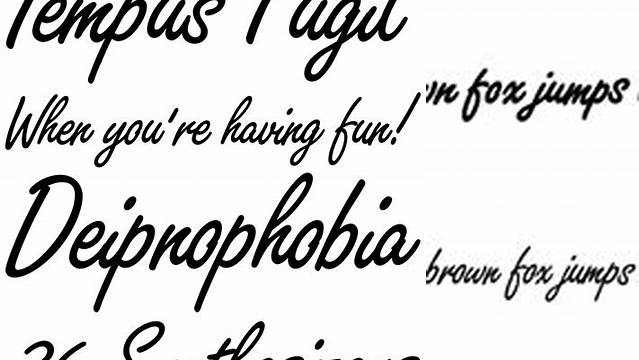
Freestyle Script STD Regular: Font Guide & Uses
Hey guys! Ever stumbled upon a font that just oozes elegance and personality? Well, that's Freestyle Script STD Regular for you! This font is like that effortlessly cool friend who always knows how to make a statement. In this article, we're diving deep into everything Freestyle Script STD Regular – from its history and characteristics to its best uses and even some fun alternatives. So, buckle up and let's get font-astic!
1. What is Freestyle Script STD Regular?
Freestyle Script STD Regular is more than just a font; it's a statement. Created by the talented Martin Wait, this typeface falls into the script font category, meaning it mimics the flowing strokes of handwriting. But what sets it apart? Freestyle Script STD Regular has this unique, almost whimsical quality. It's like a calligrapher decided to let loose and have some fun! The font features a distinctive slant, playful curves, and a rhythm that feels both spontaneous and refined. Its legibility is surprisingly good for a script font, making it versatile for a range of applications, from invitations to branding materials. So, whether you're designing a logo, crafting a heartfelt card, or adding a personal touch to your website, this font can be a game-changer. But what exactly makes it so special? Let's delve deeper into its characteristics and explore what makes Freestyle Script STD Regular a true gem in the world of typography.
2. History and Origin of Freestyle Script
The story behind Freestyle Script is as interesting as the font itself. Designed by Martin Wait in 1981, this font wasn't an instant hit, but it steadily gained popularity over the years, becoming a staple in many designers' toolboxes. Martin Wait's vision was to create a script font that felt both natural and stylish, capturing the essence of handwritten calligraphy but with a modern twist. He drew inspiration from various sources, including traditional penmanship and contemporary design trends. The result? A typeface that's both timeless and fresh. The journey of Freestyle Script STD Regular from its inception to its widespread use is a testament to its enduring appeal. It's a font that has managed to stay relevant despite the ever-changing landscape of design, proving that true craftsmanship and a unique vision can stand the test of time. So, next time you see this font, remember the passion and artistry that went into creating this iconic typeface.
3. Key Characteristics of Freestyle Script STD Regular
Okay, let's break down what makes Freestyle Script STD Regular so... well, Freestyle. It's not just another pretty script font; it has some distinct features that make it stand out. First off, the slant is a big part of its personality. It leans forward with a certain flair, giving it a sense of movement and energy. Then there are the curves – oh, those lovely curves! They're not overly formal or rigid; instead, they have a playful, almost bouncy quality. The letterforms themselves are quite unique, with varying stroke weights that mimic the natural flow of handwriting. Think about how a real person writes – sometimes the pen pressure is heavier, sometimes lighter. Freestyle Script STD Regular captures that nuance beautifully. And let's not forget the connections between letters! They're smooth and fluid, creating a sense of continuity and rhythm. All these elements combined give Freestyle Script STD Regular its signature look: elegant, whimsical, and undeniably eye-catching. It’s a font that knows how to make an entrance, without being too loud or overbearing.
4. Best Uses for Freestyle Script STD Regular
So, you're digging Freestyle Script STD Regular, but where do you actually use it? The possibilities are pretty vast, guys! Because of its elegant yet playful nature, it's a fantastic choice for projects that need a touch of personality and warmth. Think wedding invitations, where its graceful curves can set a romantic tone. It's also killer for greeting cards, adding a personal, handwritten feel that printed fonts often lack. Logos are another great area – Freestyle Script STD Regular can give a brand a sophisticated yet approachable vibe. Imagine a bakery or a boutique using this font – it just screams 'unique' and 'high-quality'. Beyond print, it works well on the web too! Use it for headings or subheadings on your website to add a touch of flair, but remember to keep the body text in a more readable font. It can also spice up your social media graphics and email marketing campaigns, making your message stand out from the crowd. But, like any font, it's not a one-size-fits-all solution. Let's explore some situations where Freestyle Script STD Regular might not be the best choice, shall we?
5. When to Avoid Using Freestyle Script STD Regular
Alright, let's keep it real – as much as we love Freestyle Script STD Regular, it's not always the perfect fit. There are definitely situations where you might want to steer clear. For example, long blocks of text are a big no-no. Remember, it's a script font, which means it's designed for shorter phrases and headlines. Imagine reading a whole novel in Freestyle Script – your eyes would be begging for mercy! Also, it's not the best choice for highly technical or formal documents. Think legal contracts or scientific papers – you want something clean and straightforward there, not a font with a lot of personality. Small sizes can also be tricky. The delicate strokes and curves of Freestyle Script STD Regular can get lost when shrunk down, making it hard to read. So, if you need tiny text, opt for a simpler font. And finally, consider your audience. If you're designing something for a very conservative or traditional audience, Freestyle Script might come across as too playful. It's all about finding the right balance and using the font in a way that enhances your message, not detracts from it. Now that we know when not to use it, let’s jump into some awesome alternative fonts!
6. Similar Fonts and Alternatives to Freestyle Script
Okay, so you're loving the vibe of Freestyle Script STD Regular, but maybe you need something a little different? No worries, there are tons of fantastic alternatives out there! If you're looking for a similar script font with a touch of elegance, check out Brush Script MT. It has a similar handwritten feel but with a slightly bolder stroke. Edwardian Script ITC is another great option, known for its refined and sophisticated style – perfect for those super fancy occasions. If you want something a bit more modern, ** চ্যানেলের Script** is worth a look. It's got a sleek, contemporary feel while still maintaining that handwritten charm. For a more playful and casual vibe, Cookie is a fun choice. It's got a quirky, almost whimsical feel that's great for informal projects. And if you need something super legible, even at smaller sizes, Segoe Script is a solid option. It's clean and clear while still retaining a script-like quality. The key is to experiment and find a font that perfectly matches the tone and style of your project. There’s a whole world of beautiful fonts out there, just waiting to be discovered! Next up, let's dive into the nitty-gritty of font pairing – because choosing the right companion font is crucial.
7. Font Pairing with Freestyle Script STD Regular
Font pairing, guys, is like the secret sauce of good design. You can have a killer headline font like Freestyle Script STD Regular, but if you pair it with the wrong font for the body text, the whole thing can fall flat. So, how do you nail it? The general rule of thumb is to contrast, but complement. Since Freestyle Script STD Regular is so expressive and decorative, you'll want to pair it with something simpler and more readable. Think of it as the yin and yang of typography! A classic sans-serif font like Arial, Helvetica, or Open Sans can create a nice balance. Their clean lines and simple forms provide a visual counterpoint to the flowing curves of Freestyle Script. If you prefer a serif font, Times New Roman or Georgia can also work well, especially for more formal designs. The key is to ensure that the body text font doesn't compete with Freestyle Script for attention. It should be a supporting player, not the star of the show. You can also play with different weights and sizes to create visual hierarchy and guide the reader's eye. Experiment, have fun, and don't be afraid to try different combinations until you find the perfect match. Up next, we'll explore some real-world examples of how Freestyle Script STD Regular is used in design!
8. Real-World Examples of Freestyle Script in Design
Okay, let's get inspired! Freestyle Script STD Regular is all over the place, and once you start looking, you'll spot it in tons of cool designs. Think logos – many small businesses and brands use it to convey a sense of personality and handcrafted quality. You'll often see it in the logos of bakeries, boutiques, and artisan shops. Wedding invitations are another classic example. Its elegant curves and flowing lines make it a perfect choice for setting a romantic and sophisticated tone. Greeting cards also benefit from its personal touch, adding a handwritten feel that's perfect for heartfelt messages. In the digital realm, you might see Freestyle Script STD Regular used in website headings or social media graphics. It can add a touch of flair and personality to your online presence. But it's not just limited to these areas! You might find it on book covers, posters, and even packaging. The key is that it's used strategically, in places where its unique character can shine without overwhelming the overall design. Let’s check on the technical specifications now! Stay tuned.